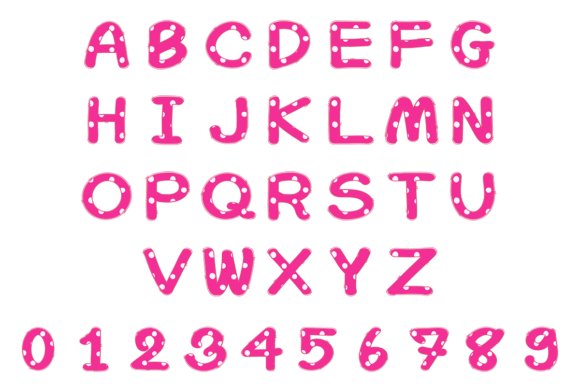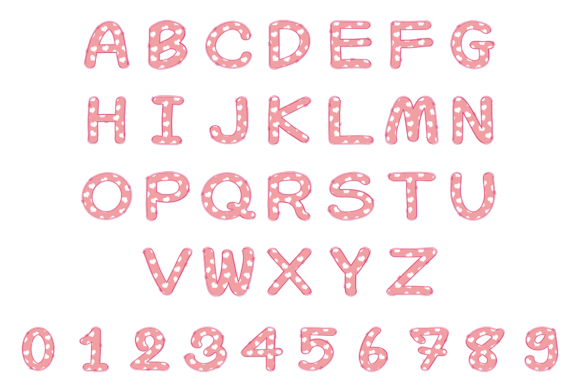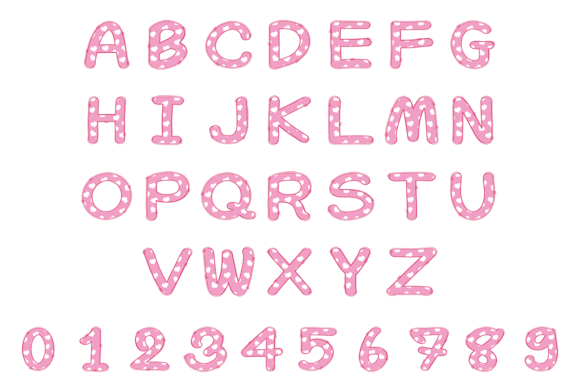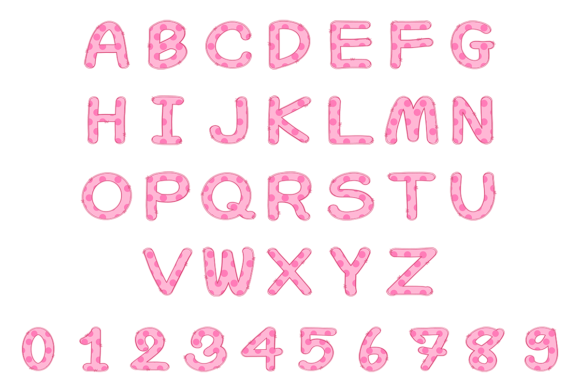
Introducing Dot Heart Font: The Ultimate Valentine’s Day Font for Designers and Crafters
Are you looking for a font that’s perfect for Valentine’s Day or any occasion that requires a touch of love and sweetness? Look no further than the Dot Heart Font! We’re proud to present this adorable color font that’s designed to bring a smile to your face and a heart to your designs.
A Font from the Heart
What Makes Dot Heart Font Special?
With Dot Heart Font, your design possibilities are limitless! You can use it to create:
- Valentine’s Day cards and gifts
- Wedding invitations and decorations
- Digital and print art
The Dot Heart Font is designed to be versatile, so feel free to experiment and come up with your unique designs!
Why Choose Dot Heart Font?
Here are just a few reasons why Dot Heart Font stands out from the rest:
- Adorable Design: Our font features a unique and adorable design that’s sure to capture the hearts of your audience.
- High-Quality: We’ve crafted this font with precision and attention to detail, ensuring it looks stunning in any design.
- Limitless Design Possibilities: As mentioned earlier, the design possibilities with this font are endless!
Get Ready to Fall in Love with Dot Heart Font!